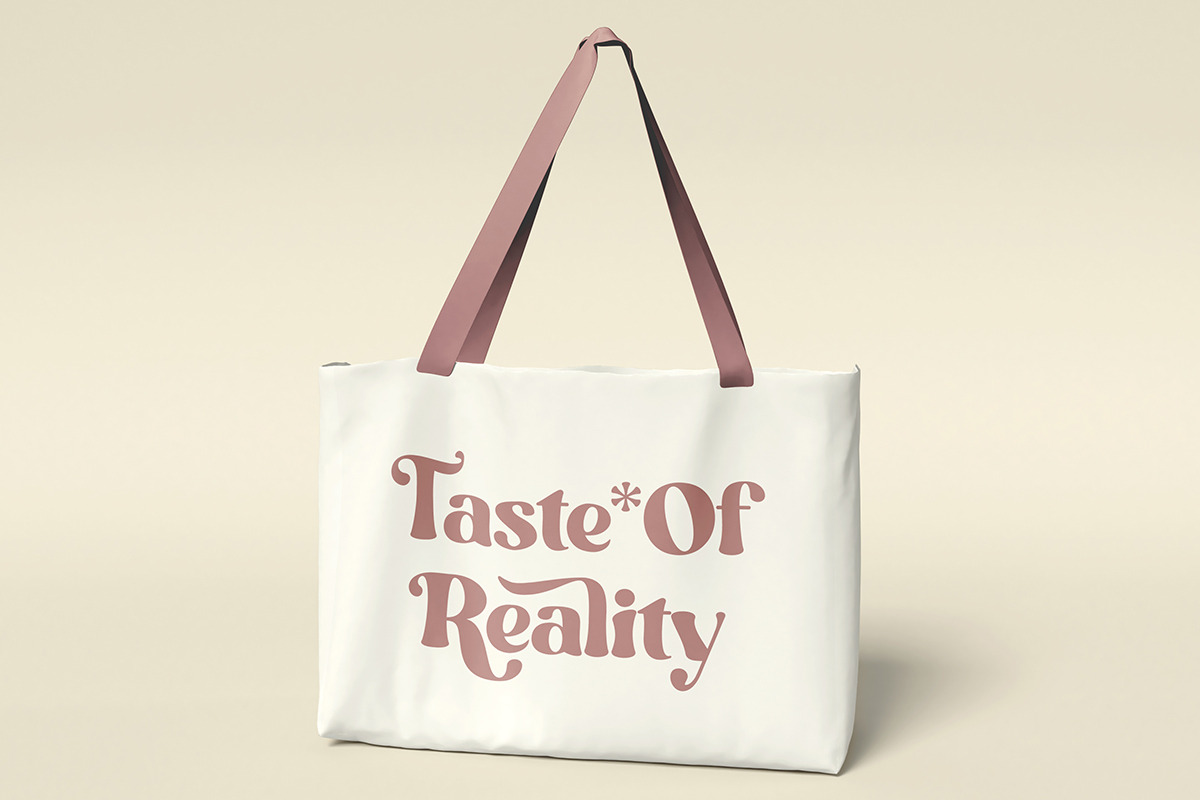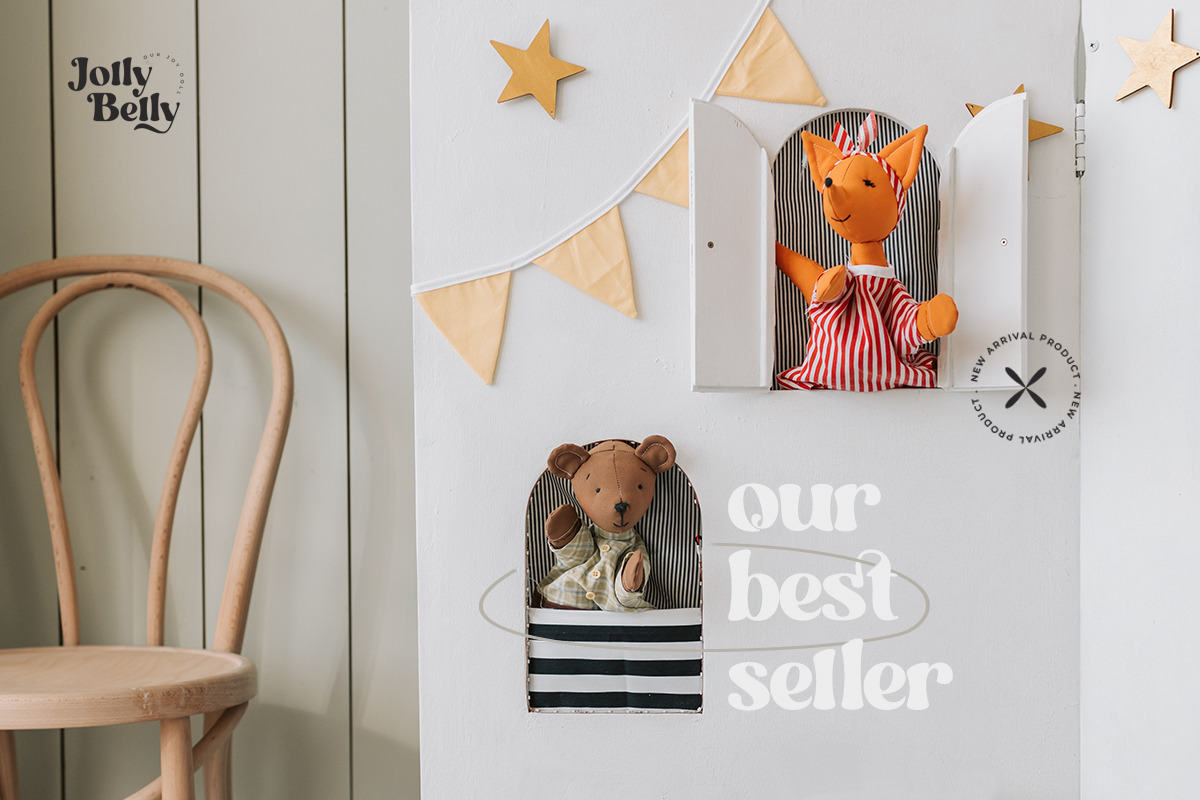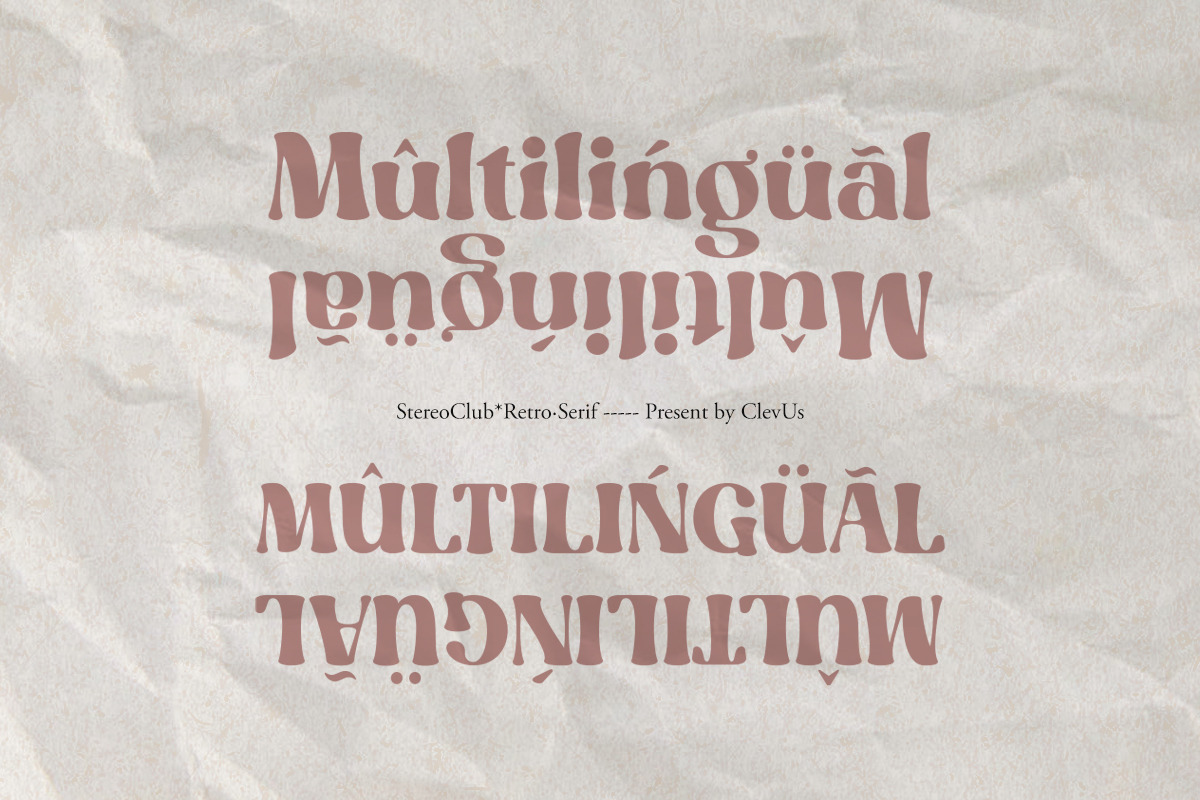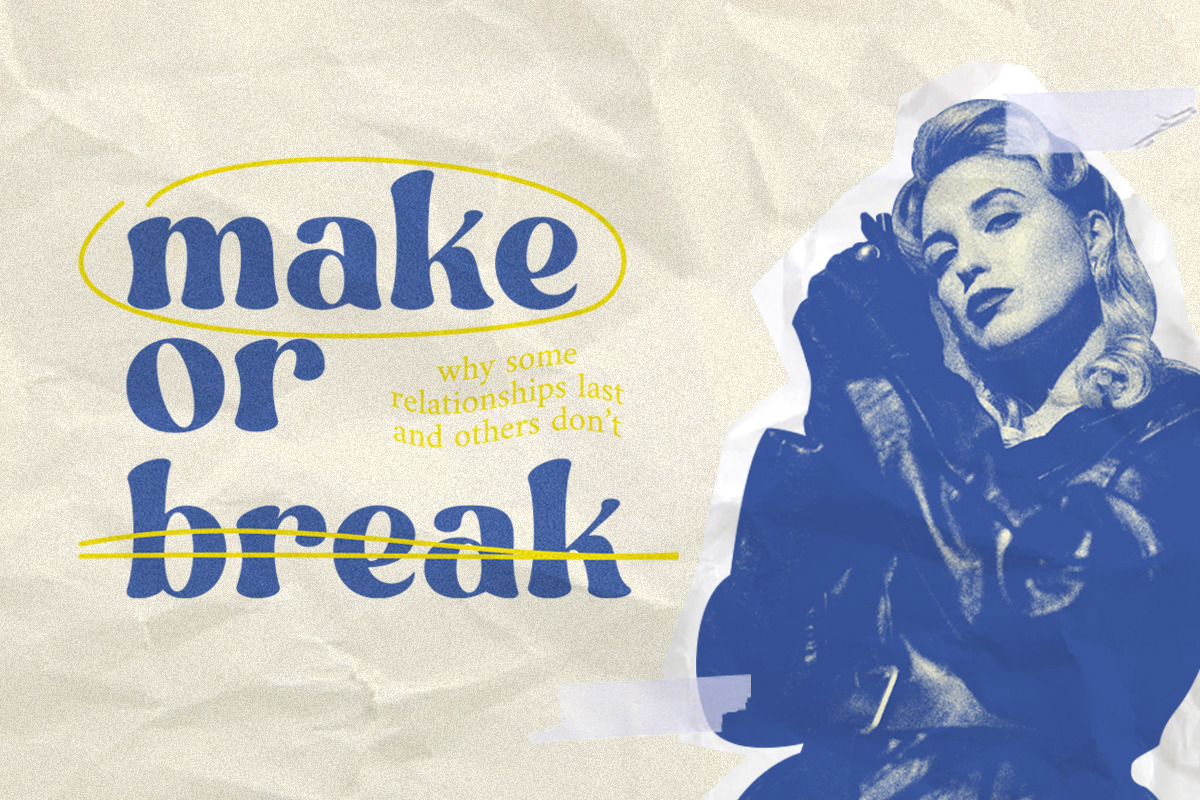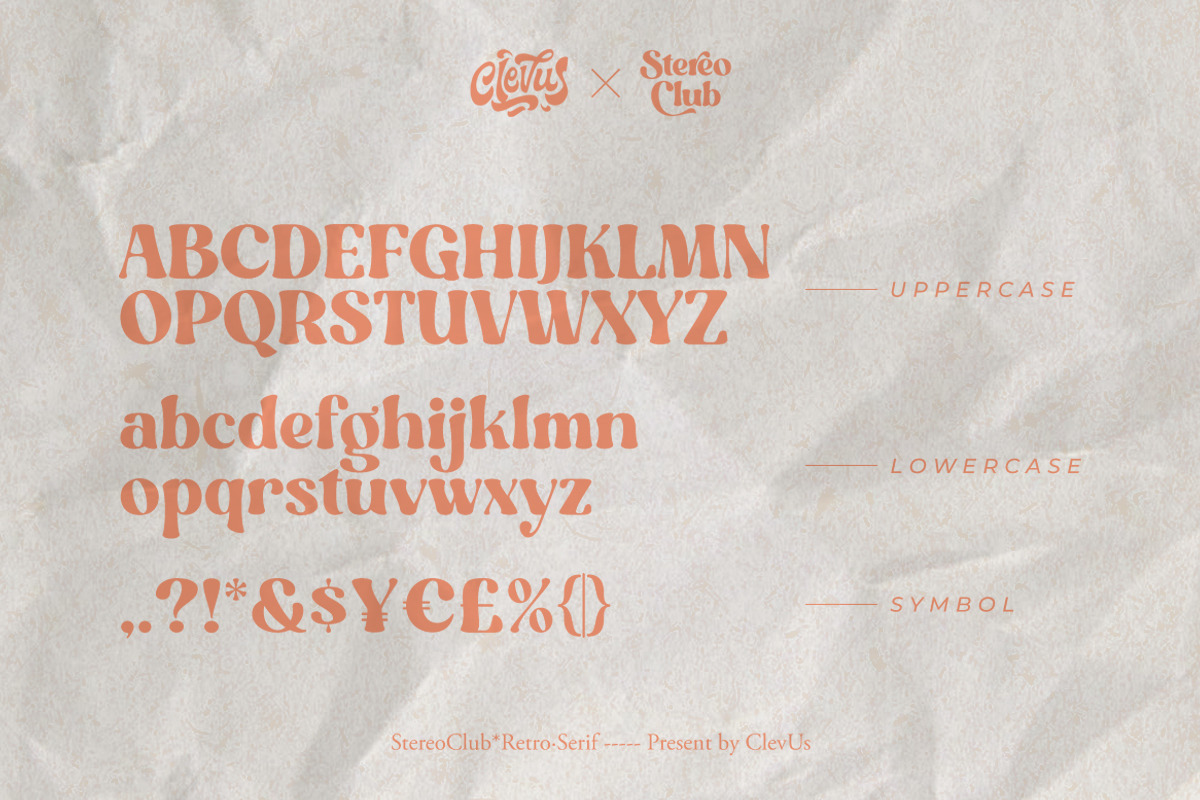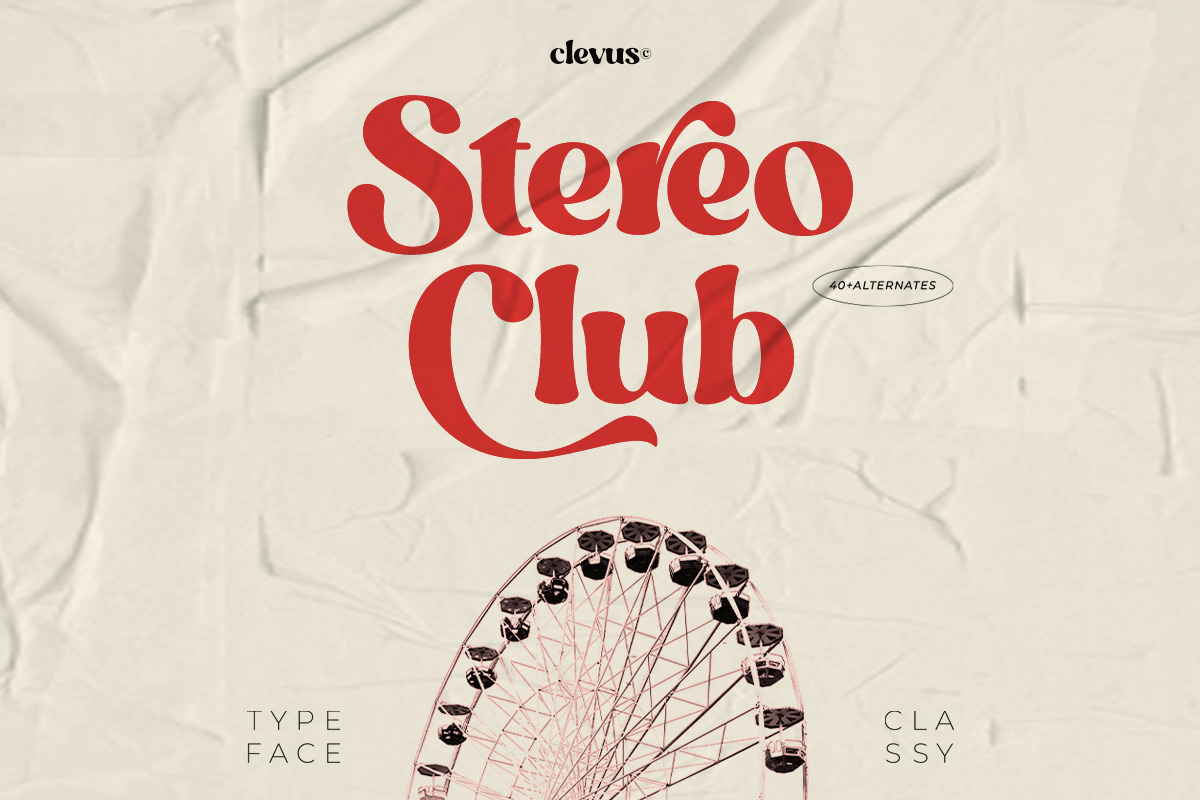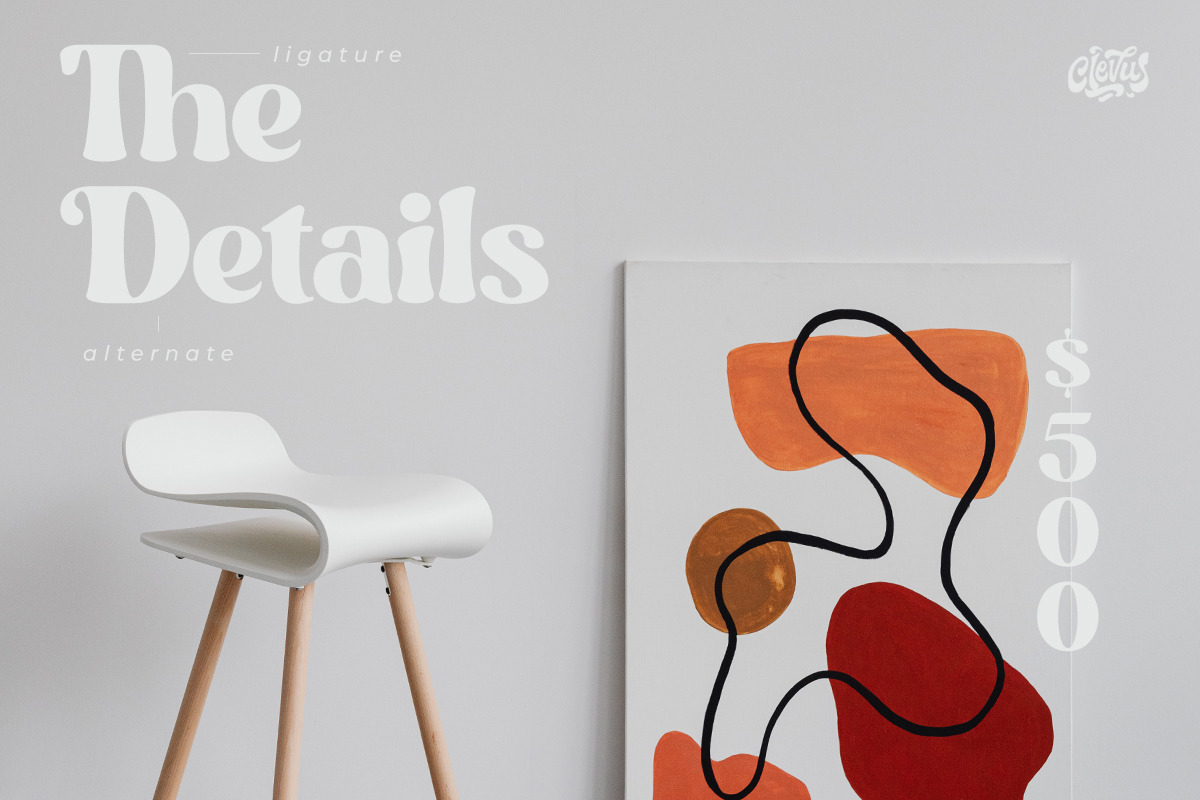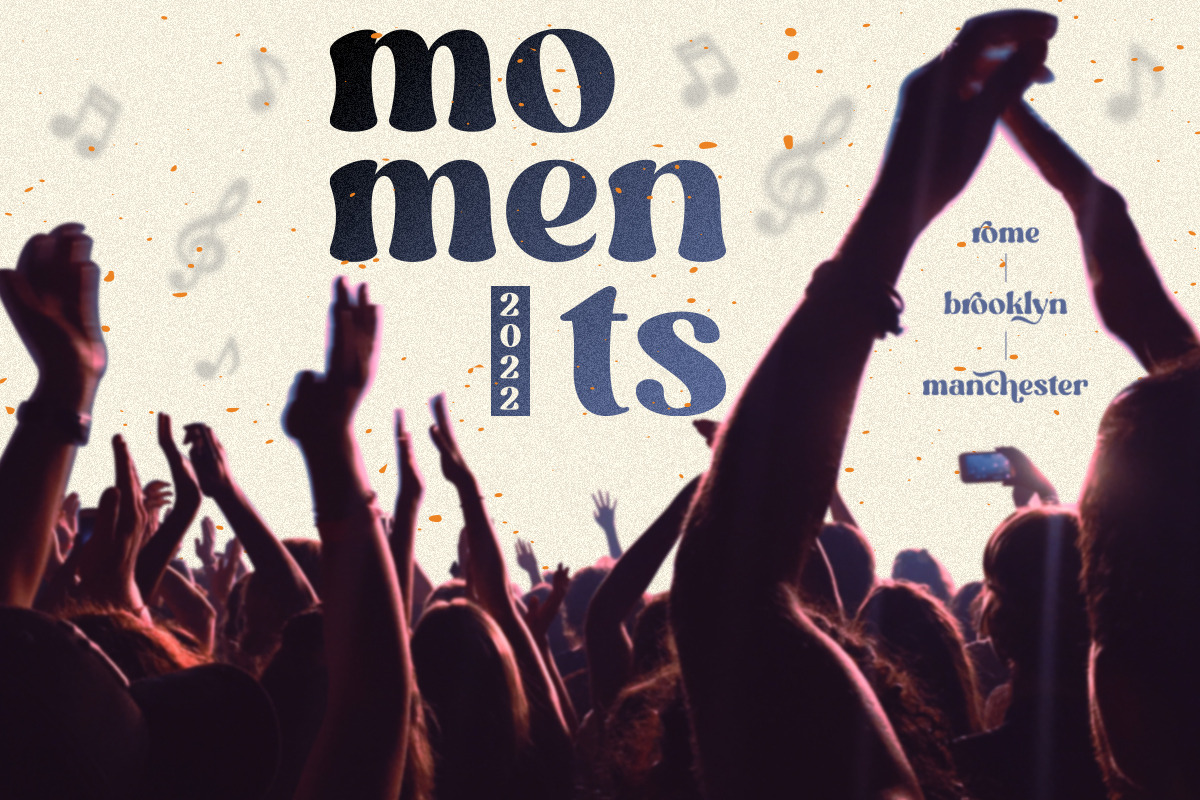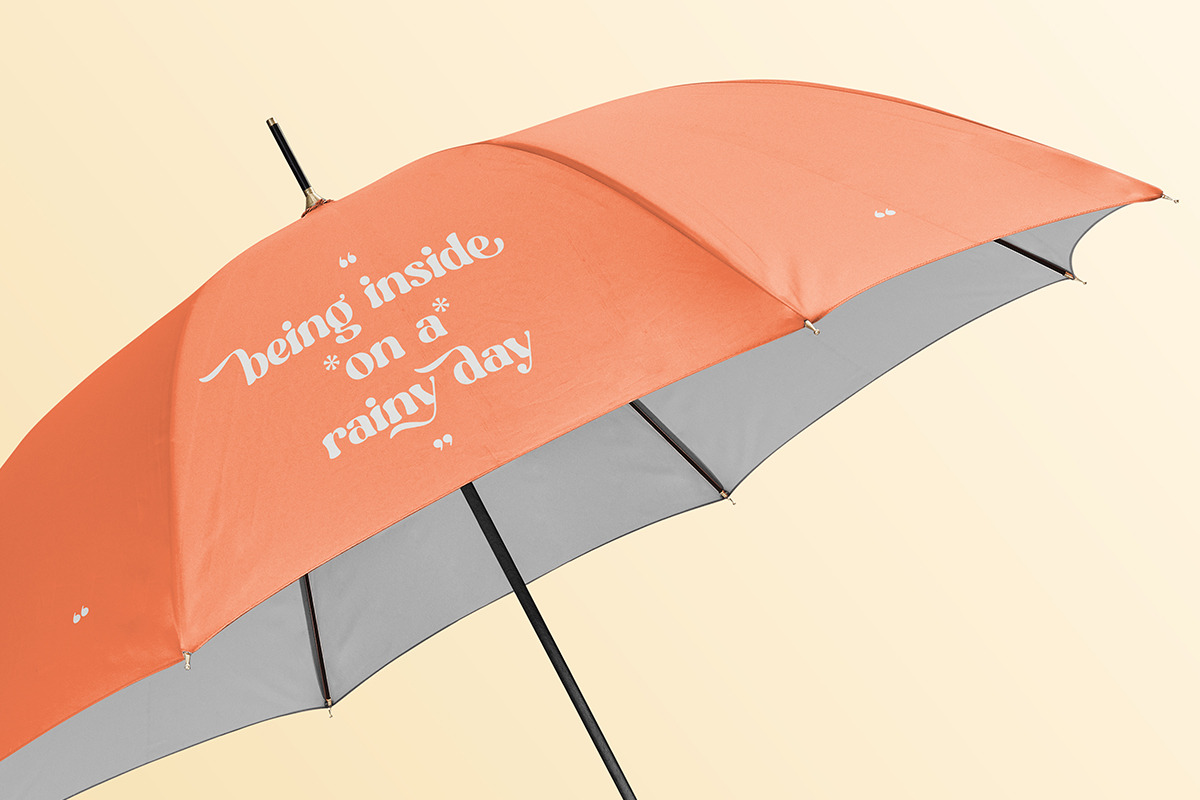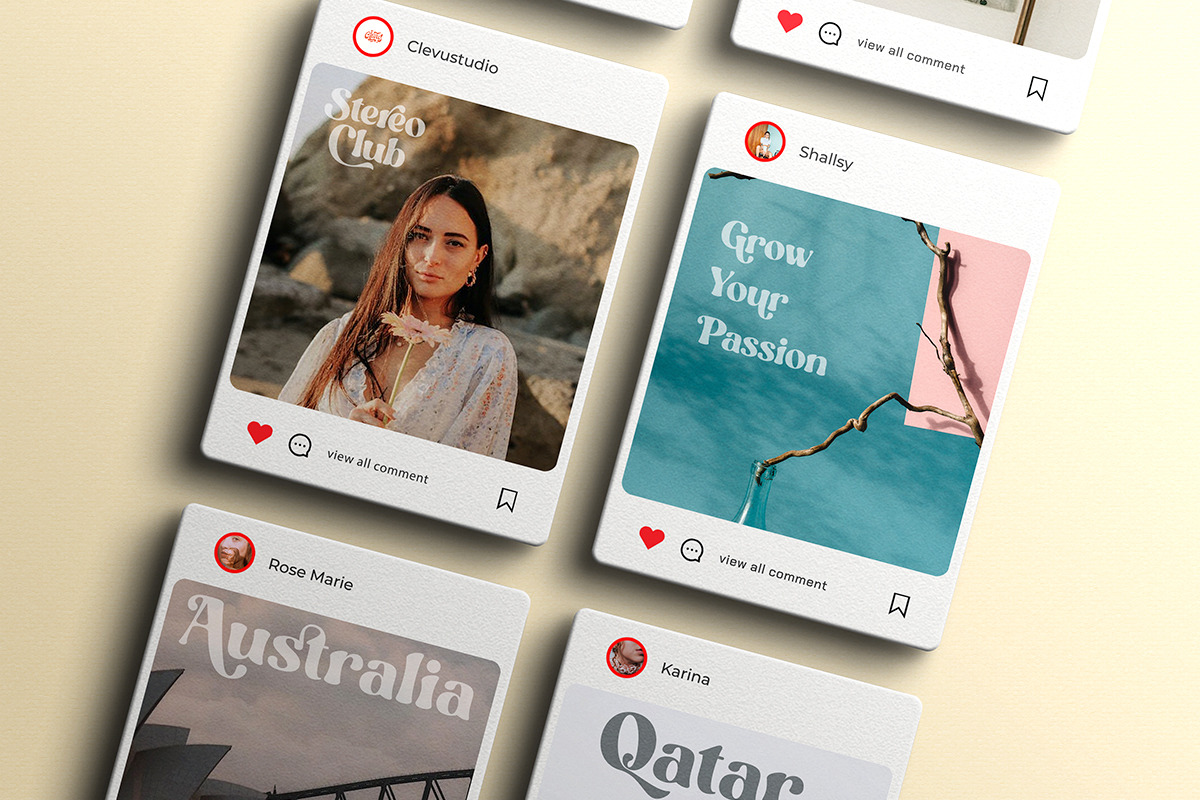
StereoClub - Modern Bold Serif Font
Proudly present StereoClub Modern Bold Typeface.
StereoClub equipped with several OpenType. Have 60 unique alternates and ligatures. Comes with alternatives and ligatures, and helps to create stunning logos, quotes, posts, blog posts, branding projects, magazine imagery, wedding invitations, poster and much more.
- Lettres, numbers, symbols, and punctuation
- 60 alternates and ligatures